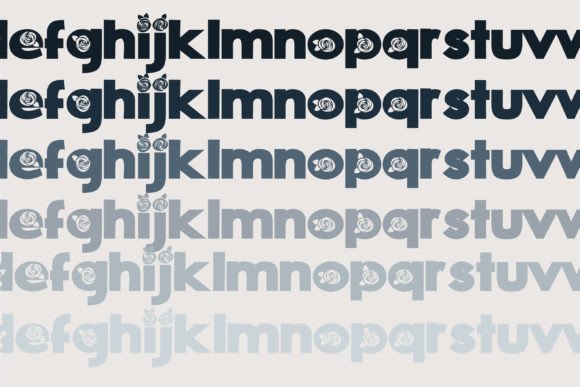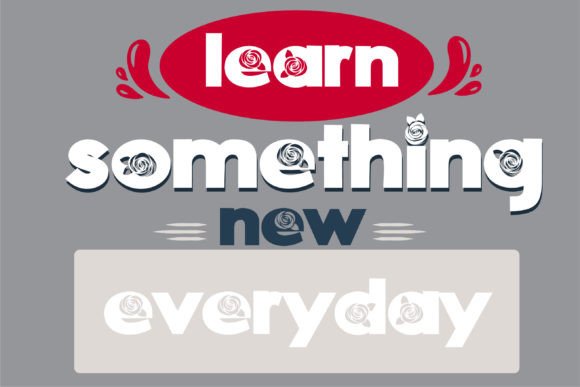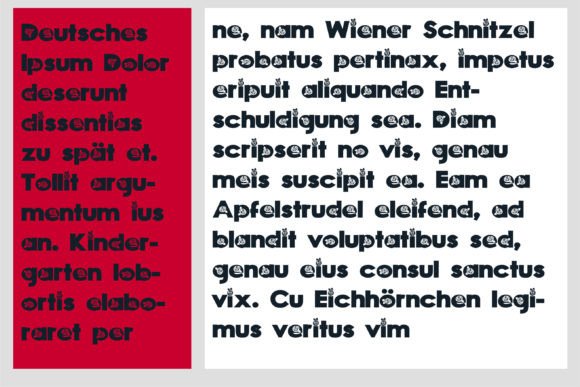
Introduction to Red Rosies Font
As designers, we’ve all been there – staring at a blank canvas, struggling to find the perfect font to bring our creative project to life. It’s a moment we’ve all experienced, and one that can make or break the overall aesthetic of our design. But what if we told you there’s a font that can add a touch of whimsy and charm to even the most mundane of designs? Enter the Red Rosies Font, a high-quality sans serif font that’s as versatile as it is beautiful.
With its rosy silhouettes and transparent background, the Red Rosies Font is a design resource that’s hard to resist. Whether you’re working on a free download or a paid project, this font is sure to add a unique touch to your design. And the best part? It’s completely free to download, making it an accessible resource for designers of all levels.
Key Features of Red Rosies Font
- High-quality, unique design suitable for creative projects and various design resources.
- Transparent background, allowing for easy layering and customization in design software.
- Includes a range of font styles, including bold, italic, and regular, to cater to different design needs.
Honest Review: Red Rosies Font
As a designer, I’m always on the lookout for high-quality design resources to elevate my creative projects. The Red Rosies Font is one such resource that caught my attention, and I’m excited to share my thoughts on it.
Here are some things that work well: ✨
- Unique and playful design style
- Transparent background, making it easy to customize
- Wide range of character sets and language support
While the Red Rosies Font has its strengths, there are some limitations to consider: ⚠️
- Some characters may appear slightly pixelated at larger sizes
- Limited support for certain font styles, such as bold and italic
Overall, I think the Red Rosies Font is a great addition to any designer’s toolkit. Its playful design style and transparent background make it perfect for creative projects that require a touch of whimsy. While it may not be suitable for all design applications, it’s definitely worth considering for those looking for a unique and free design resource.
Common Use Cases for Red Rosies Font
The Red Rosies Font is ideal for a variety of creative projects, including branding materials, social media graphics, and editorial content. Its unique design makes it perfect for adding a touch of personality to your work.